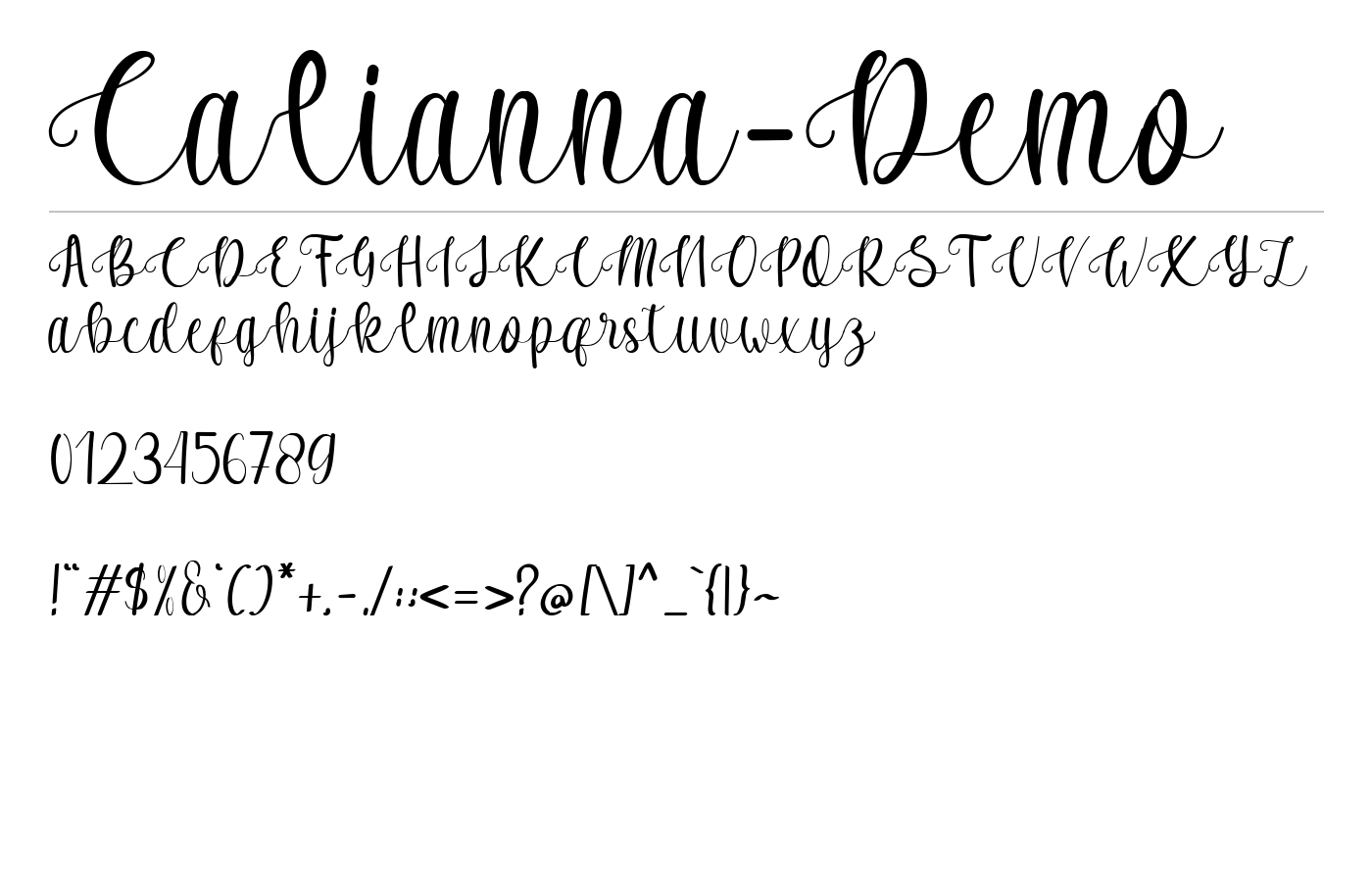
Calianna-Demo is an elegant script font featuring delicate, flowing strokes that give it a graceful and handcrafted feel. Its slender, tall letterforms with stylish swashes make it perfect for romantic or feminine designs such as wedding invitations, branding, and fashion projects. This font shines in decorative headings and logos, where its artistic charm can truly stand out.
Calianna-Demo Font
About Calianna-Demo Font
| Font family | Calianna-Demo Font |
| Designer | Amrullah; Amrullah medan; ably creative; suamzuart; dedi purwanto |